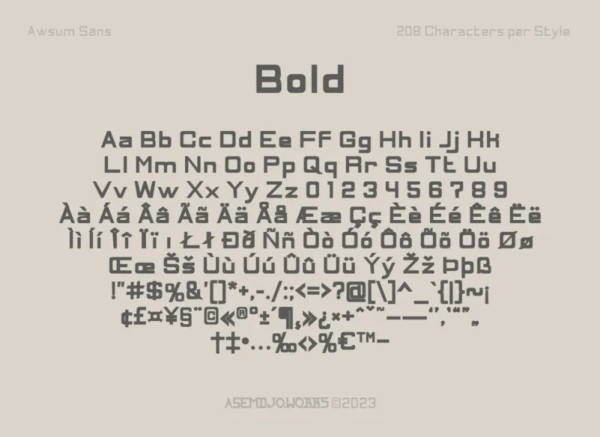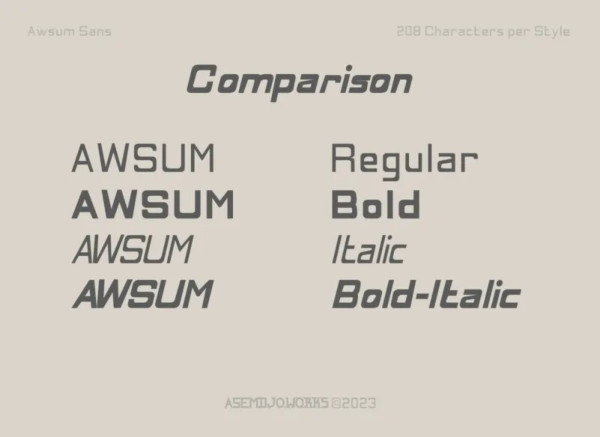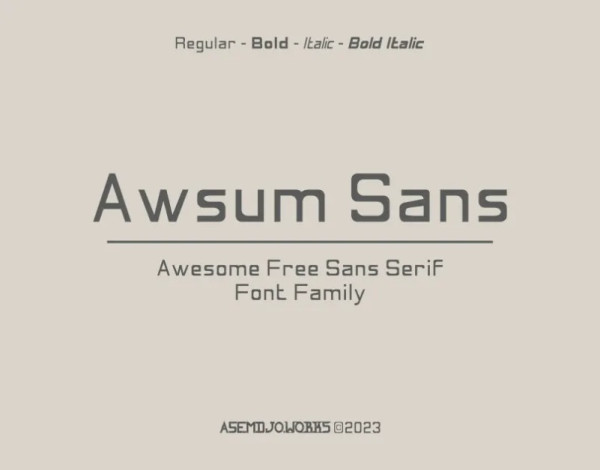
Awsum Sans Font
Awsum Sans Font is a free sans serif font family that comes with 4 styles. This powerful and sophisticated font is perfect for your logo, headline, typography, poster, magazine, brochure, packaging, websites and many more for your design needs, it will make your designs more cool and stand out.